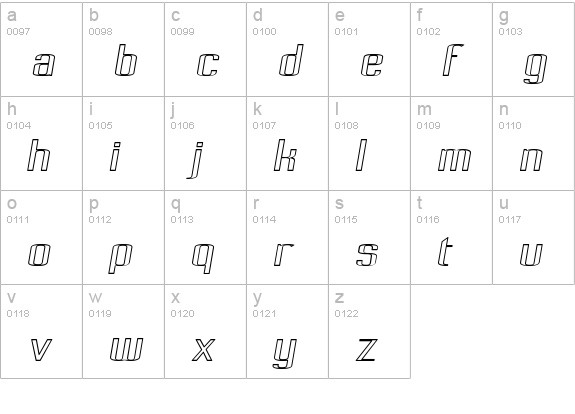
Pecot Outline Oblique is a distinctive, italic variant in the Pecot typeface family \xE2\x80\x94 well suited to design and typography projects.
Pecot Outline Oblique font is a stunning typeface that effortlessly combines elegance and modernity. Its unique oblique design adds a touch of sophistication to any project, making it perfect for branding, invitations, posters, and more. This font features a delicate outline, giving it a distinct and eye-catching look. The letters are beautifully crafted with clean lines and smooth curves, creating a harmonious balance between simplicity and complexity. One of the best things about Pecot Outline Oblique font is that it is free! Yes, you read that right. This incredible font is freely available to download at FontsMarket.com, a trusted source for high-quality fonts. Whether you are a professional designer or a creative enthusiast, you can now enjoy the elegance and versatility of Pecot Outline Oblique font without breaking the bank. With its wide range of characters and symbols, Pecot Outline Oblique font allows you to express your creativity in various ways. Use it to elevate your logo designs, add a touch of elegance to your social media graphics, or create stunning headings for your website. The versatility of Pecot Outline Oblique font makes it suitable for a wide range of design projects. Its clean and legible appearance ensures readability even at small sizes, making it ideal for both print and digital media. So why wait? Download Pecot Outline Oblique font today from FontsMarket.com and unlock a world of possibilities. Whether you're a professional designer or a hobbyist, this free font will undoubtedly become a valuable addition to your font collection. Experience the elegance and versatility of Pecot Outline Oblique font and take your designs to the next level.